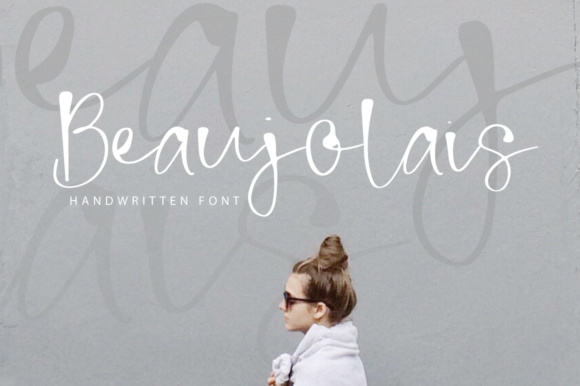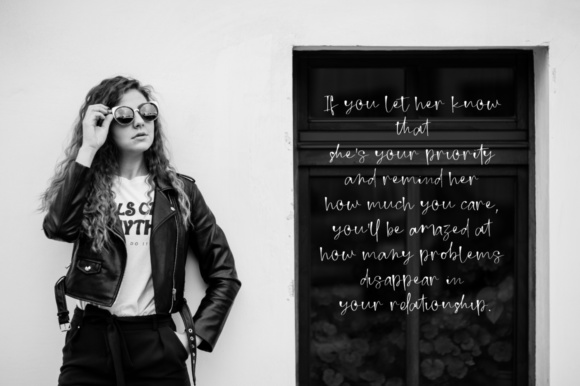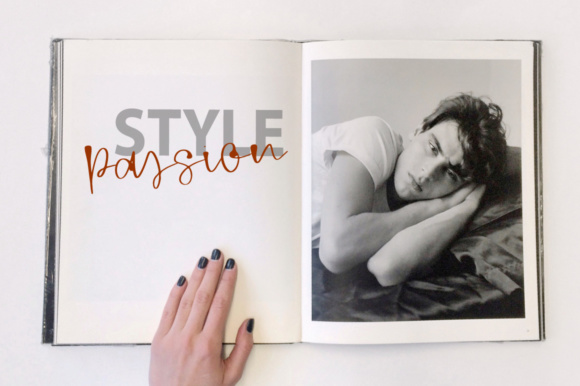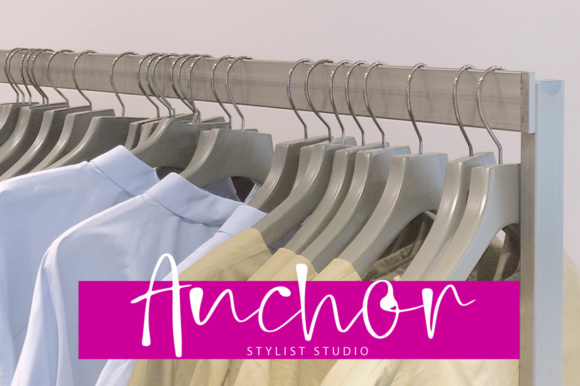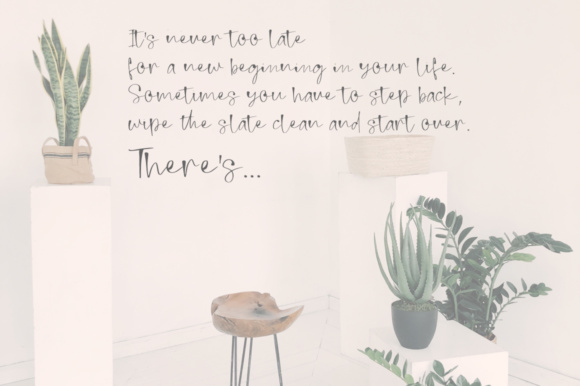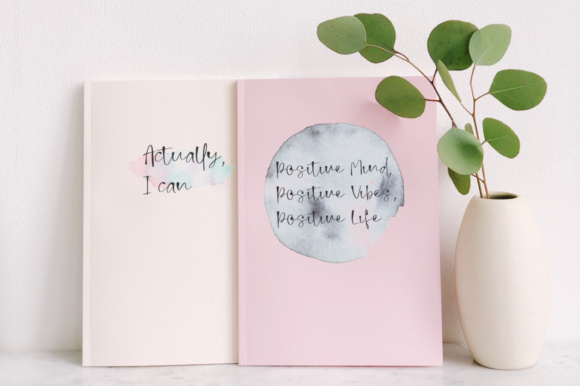
Beaujolais Font
About Beaujolais Font
Beaujolais is a modern looking font with a feminine feel.
It is a font that can be used for a large range of different projects, such as photography work, watermarks, quotes, blogs, headers, posters and much more.